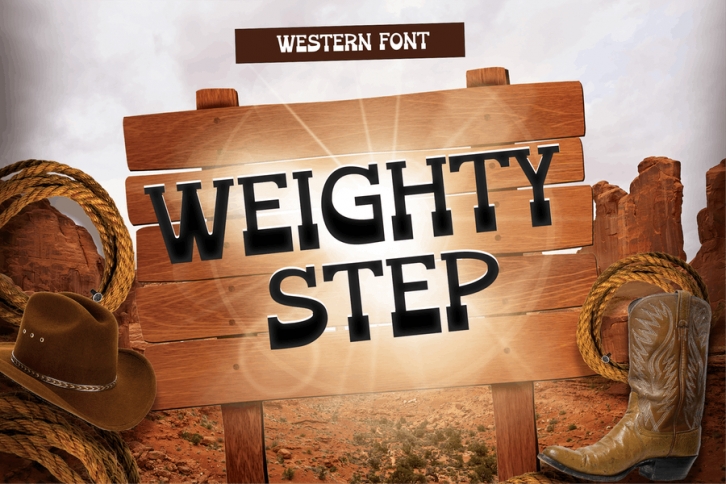
Weighty Step - Western Font
Cowboy hat, spurs, and a lasso. Weighty Step will bring the wilderness of the desert and roughness of the wild west world.
It comes in cartoon slab serif style; it sure will click and bang on your current and upcoming project.
Suit perfectly for western theme games, cowboy event posters, youtube covers, youtube thumbnails, social media page covers, and so on.